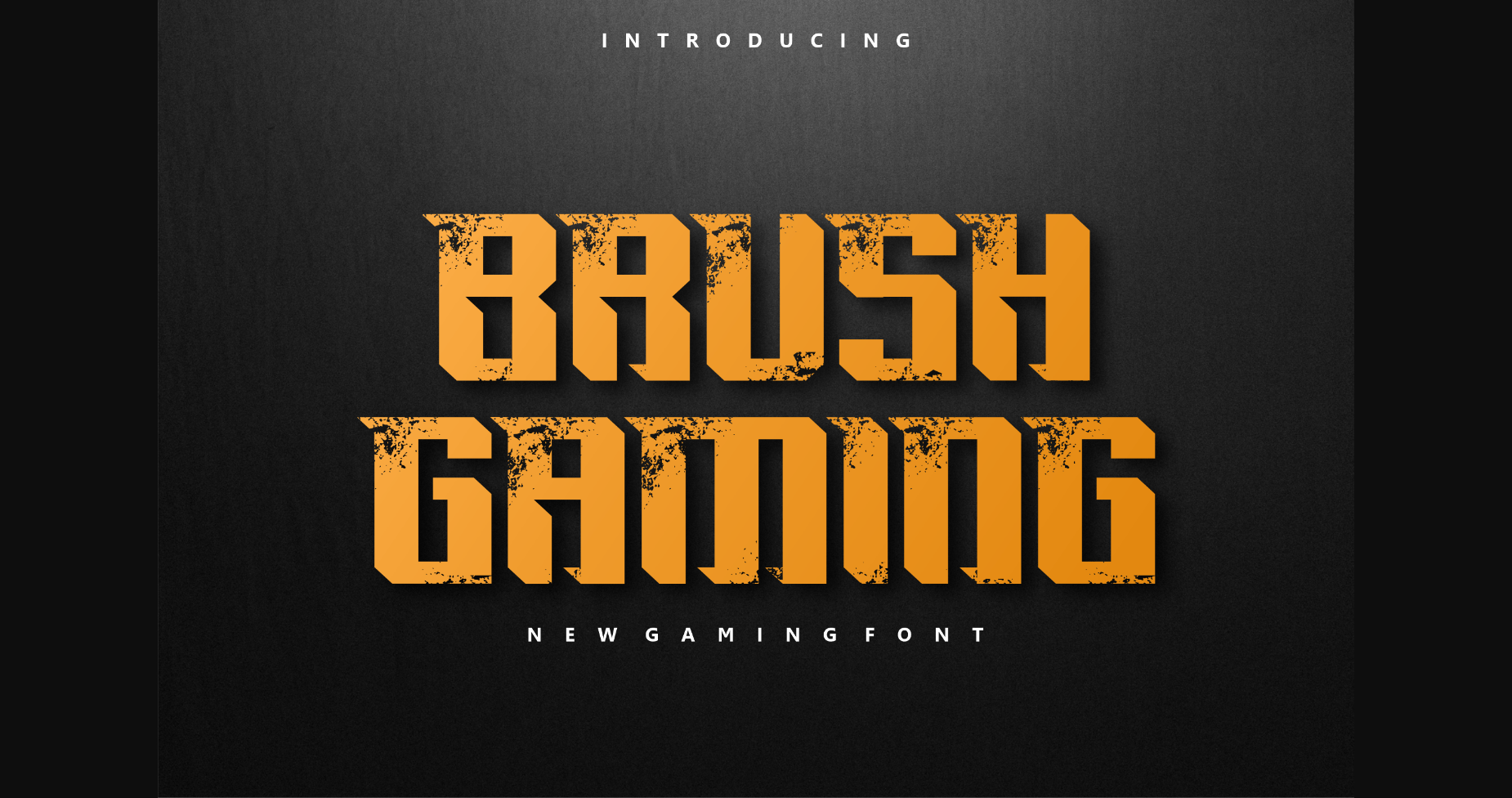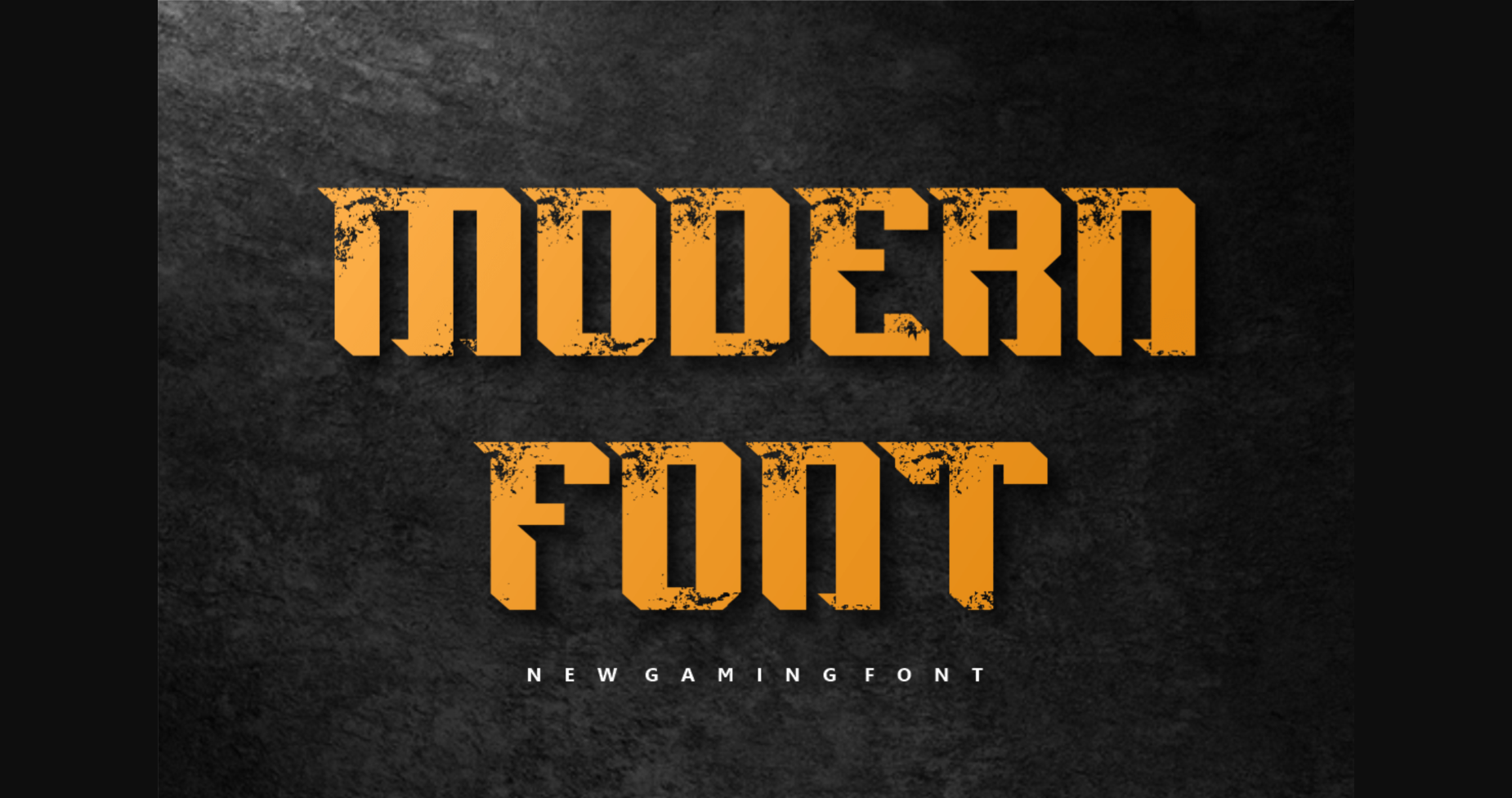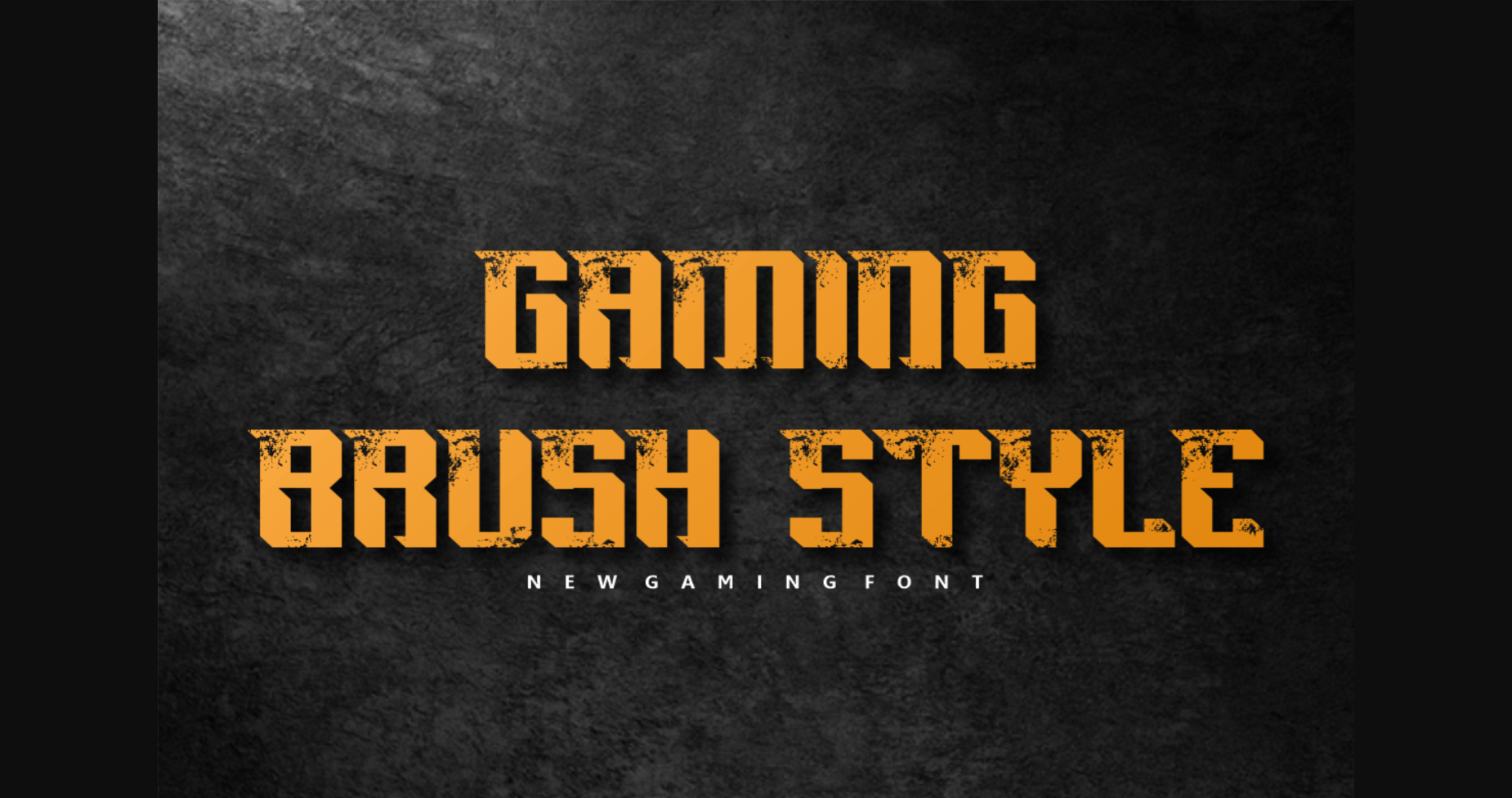
About Brush Gaming Font
Brush Gaming is a fresh and modern sans serif font with a cool grunge accent. Whatever the topic, this font will be a wonderful asset to your font library, as it has the potential to enhance any creation.